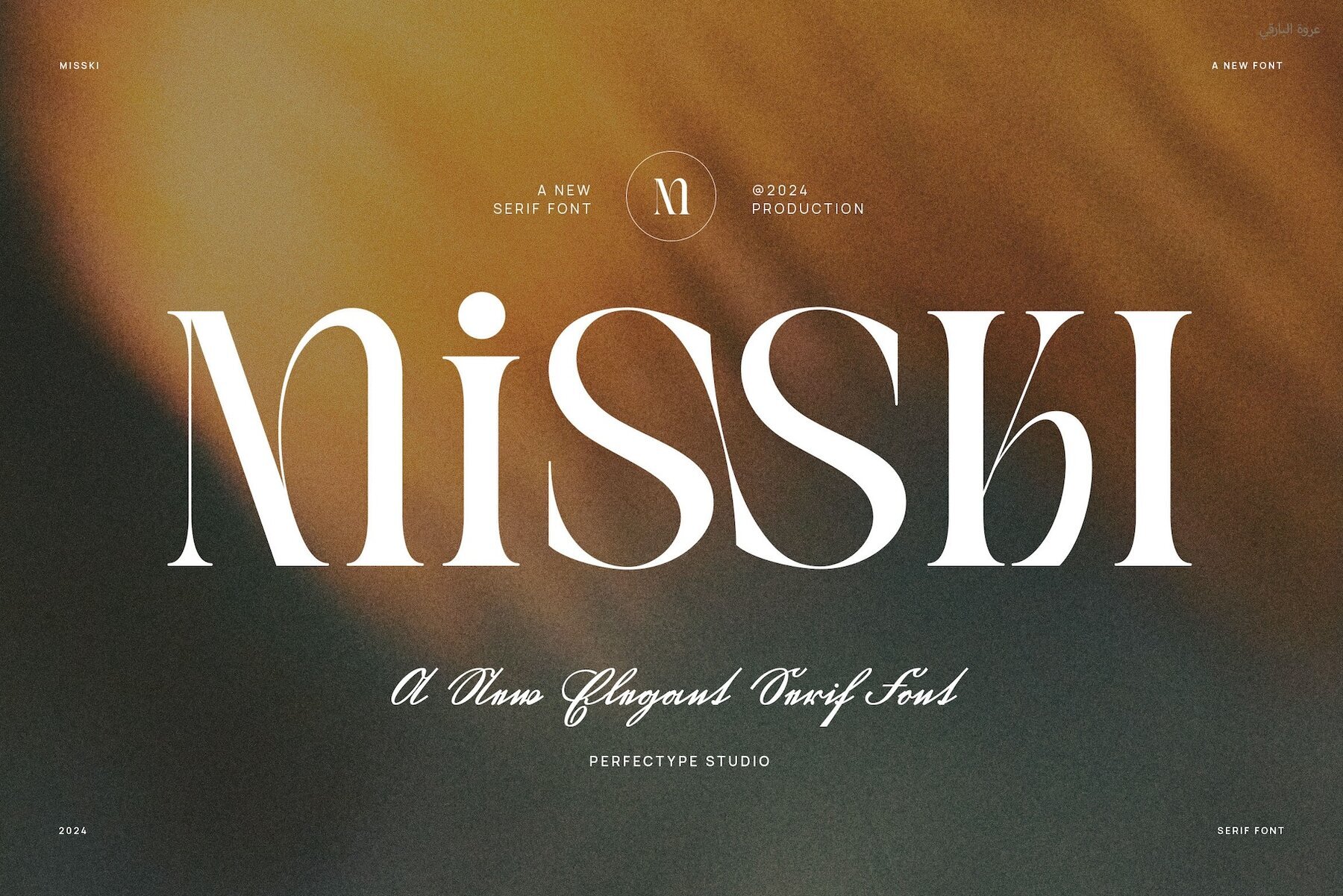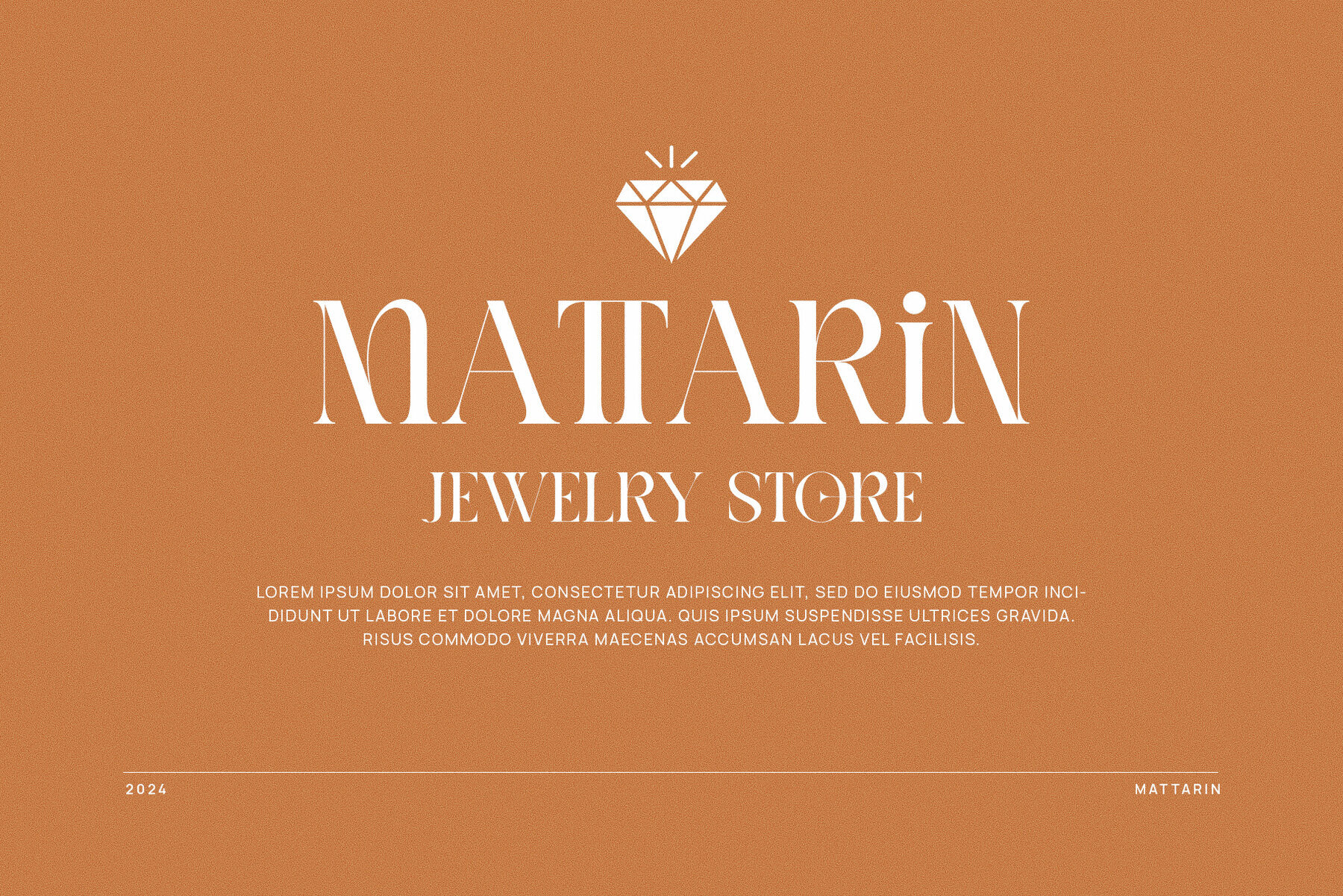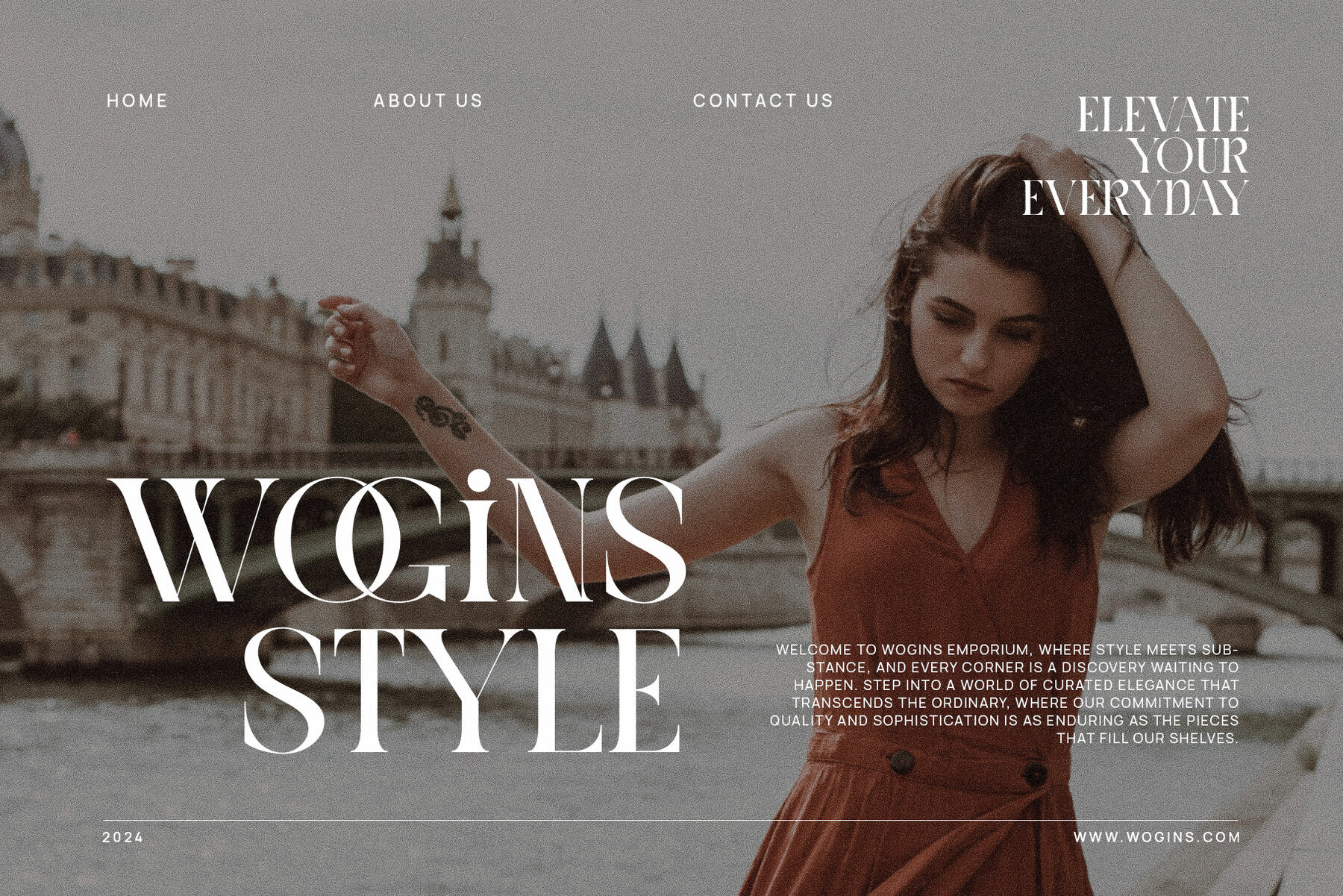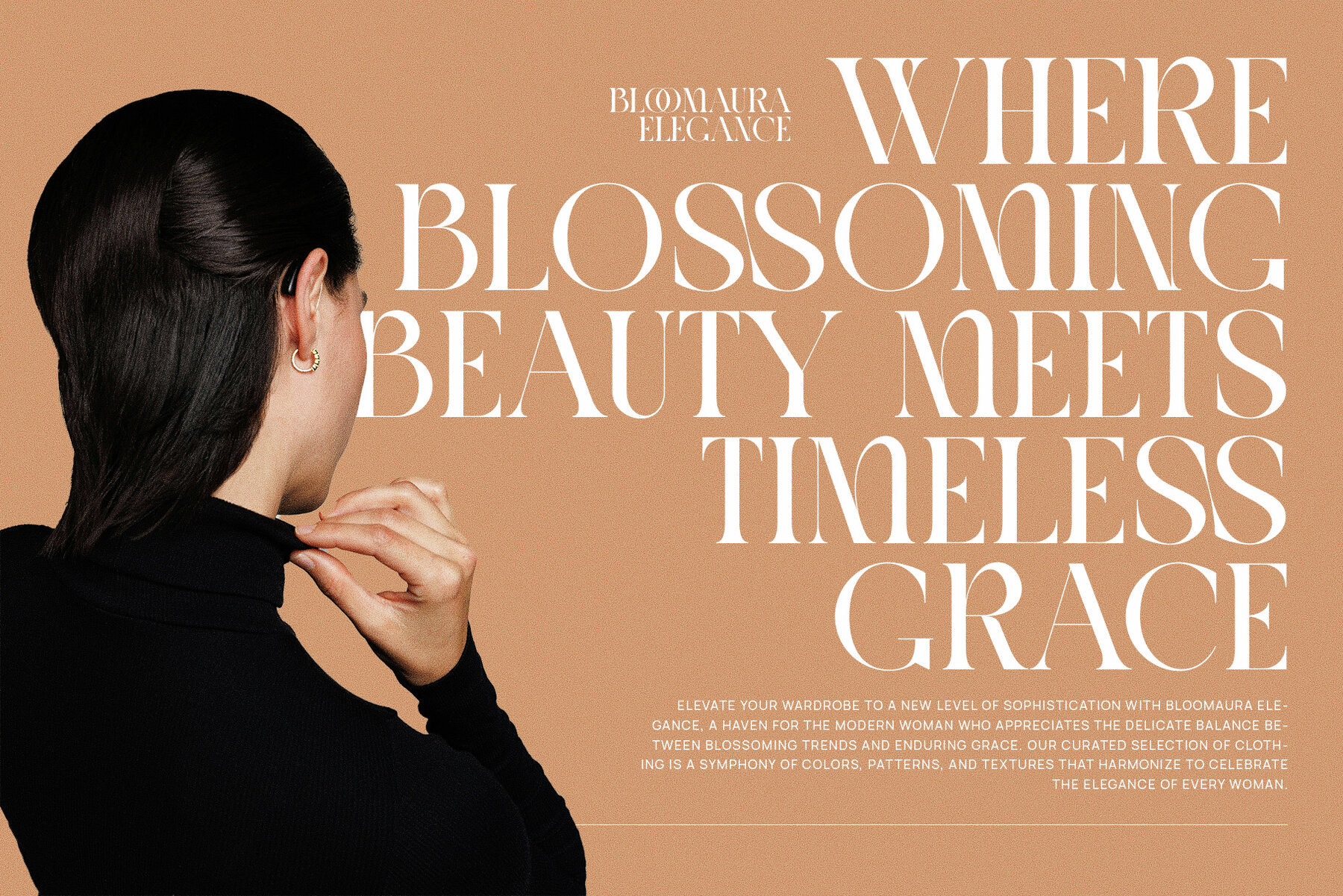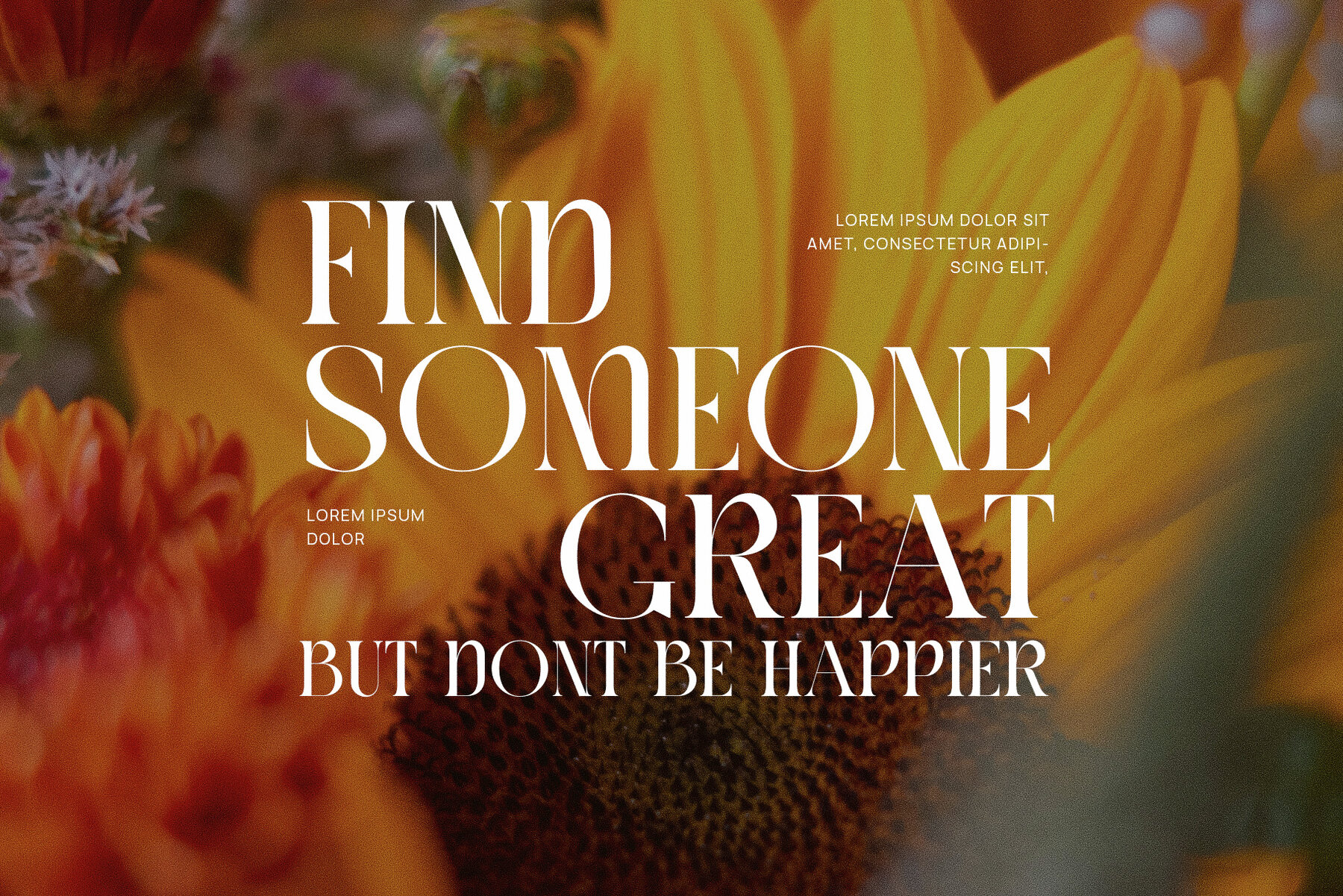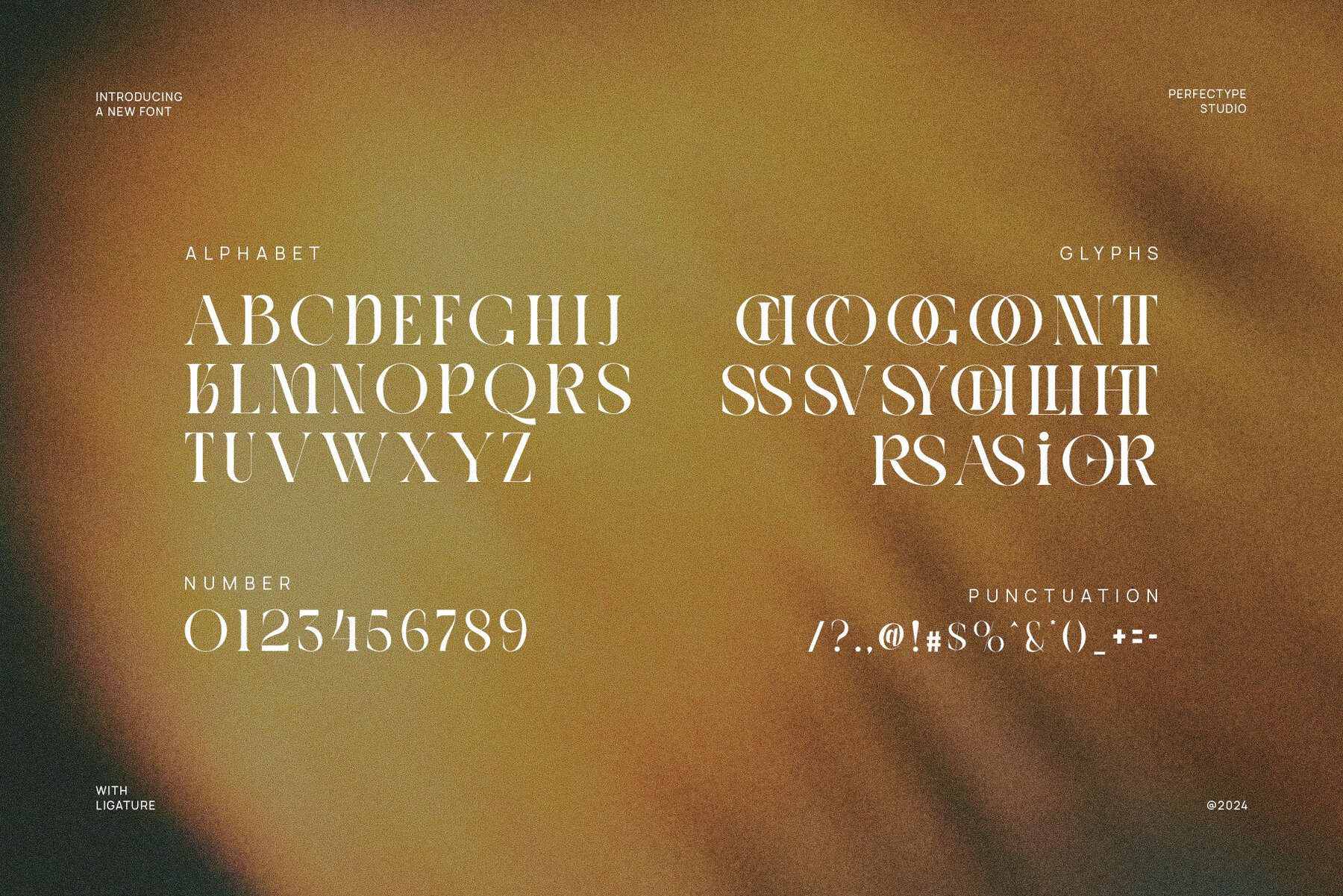
Misski Font
Misski
Misski Elegant Serif Font is a sophisticated typeface that harmoniously blends modern design with timeless elegance. With carefully crafted letterforms, graceful serifs, and a unique structure, Misski stands out in any design project. It offers beautiful ligatures and alternate characters for creative flexibility, allowing for personalized typography that enhances design aesthetics. Ideal for high-end branding, Misski imparts a sense of luxury to logos, visual identities, and product packaging.
Versatile in its application, Misski is perfect for both large headlines and smaller body text, making it suitable for websites, magazines, advertisements, and promotional materials. Whether designing a chic boutique logo, a stylish food label, or an editorial layout, Misski provides a polished and sophisticated touch. It is particularly well-suited for industries demanding elegance and class, such as fashion, lifestyle, food, and boutique brands.
Misski's elegant curves, smooth ligatures, and unique alternate features make it an excellent choice for memorable, luxurious branding. Its timeless design ensures adaptability across both print and digital formats, offering a consistent and high-end look across all platforms, leaving a lasting impression on your audience.